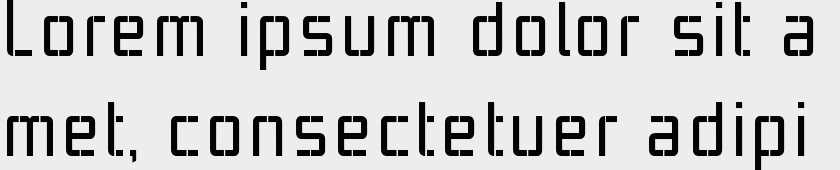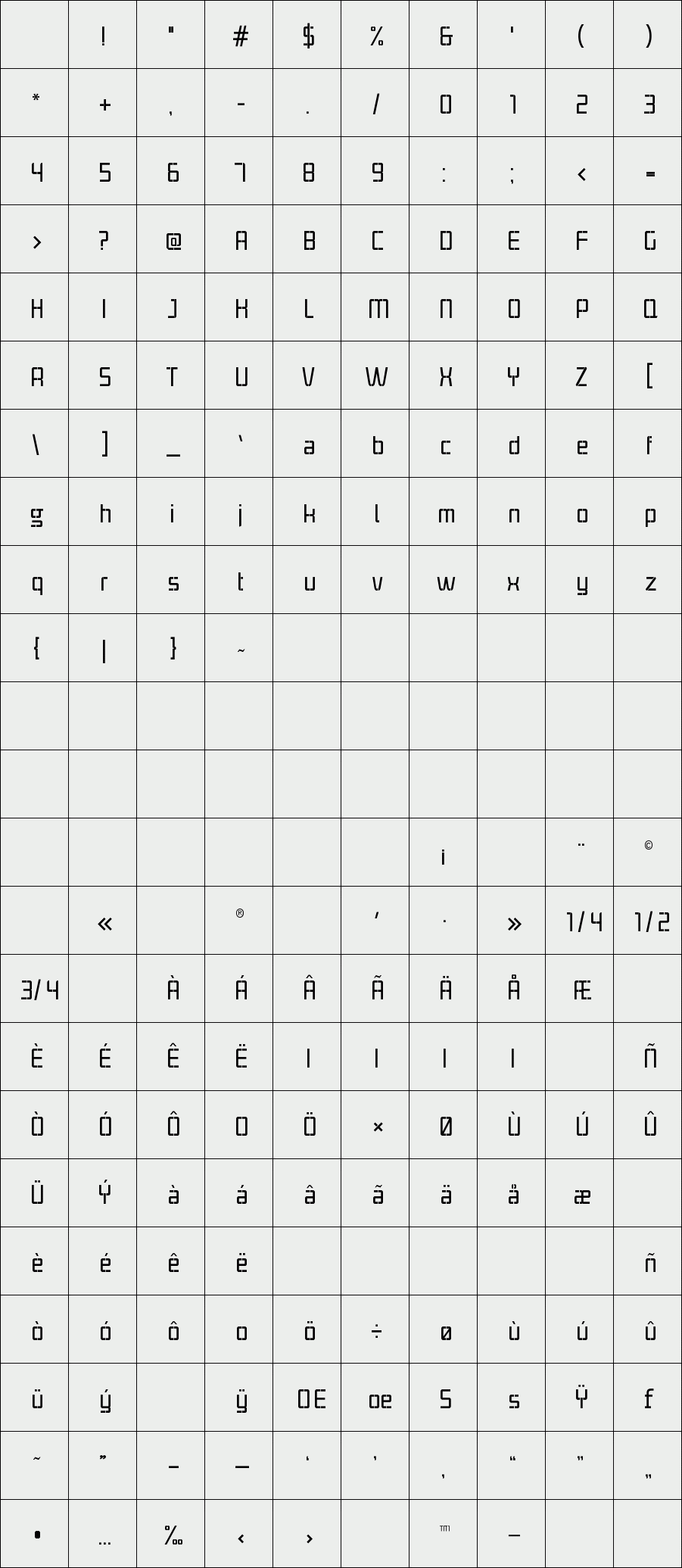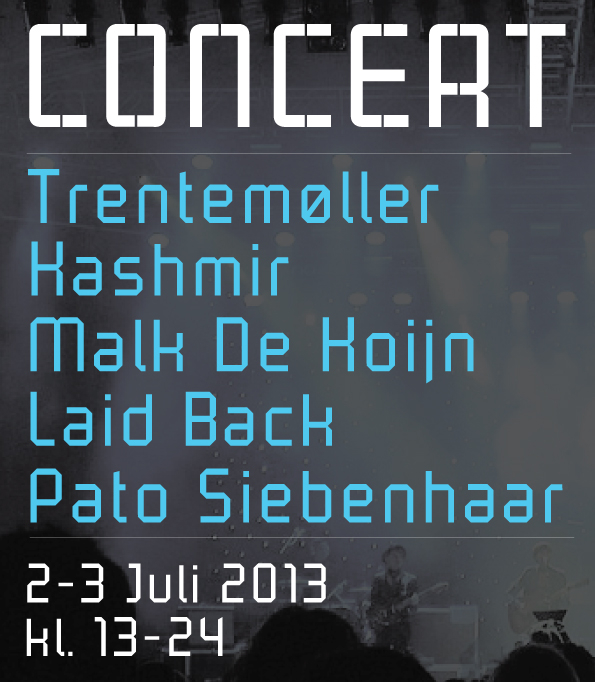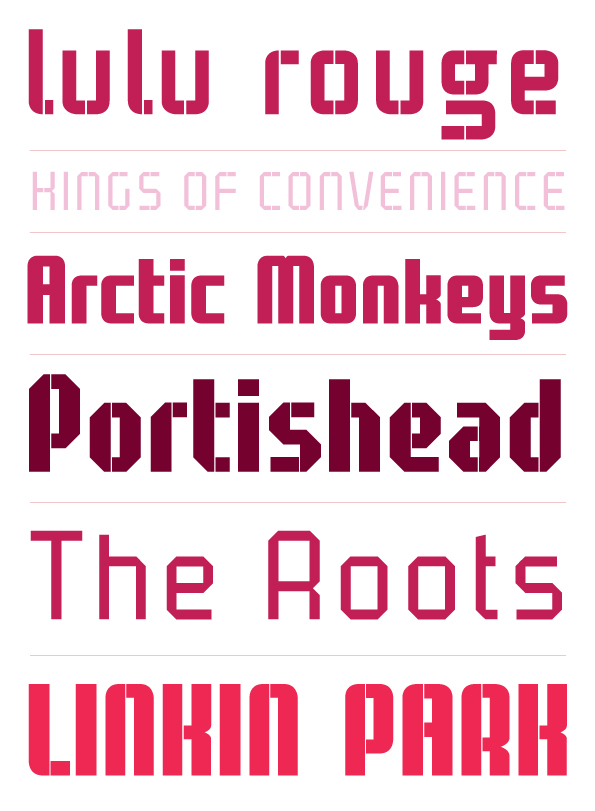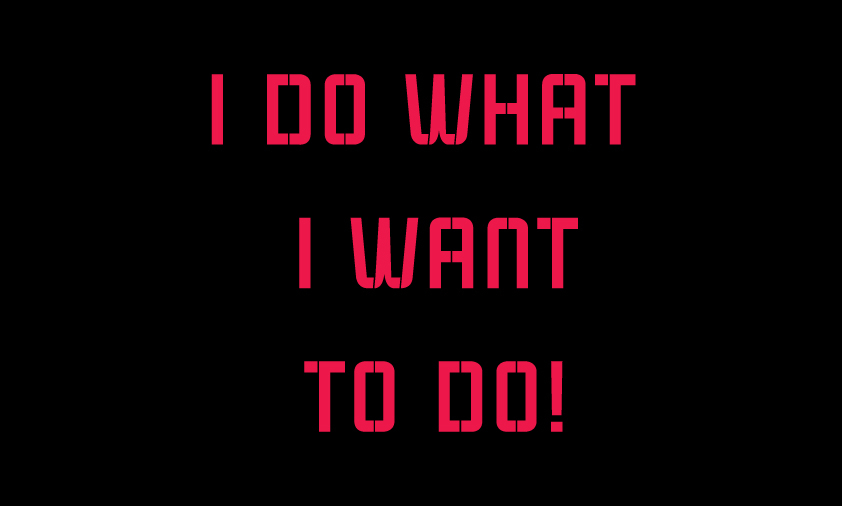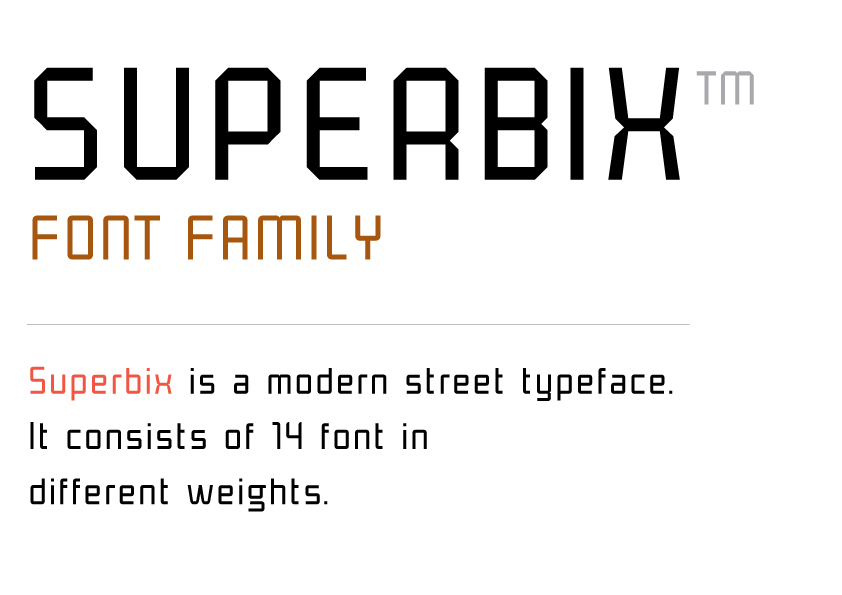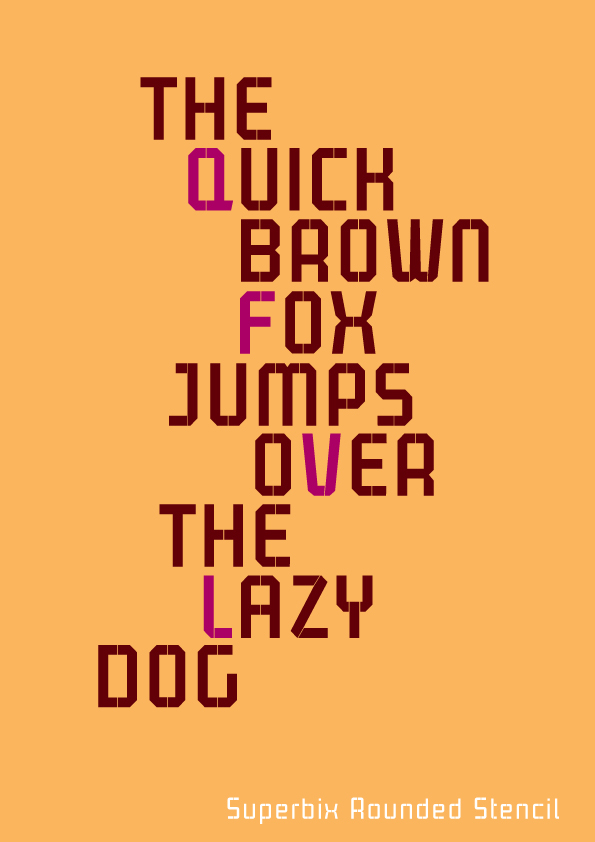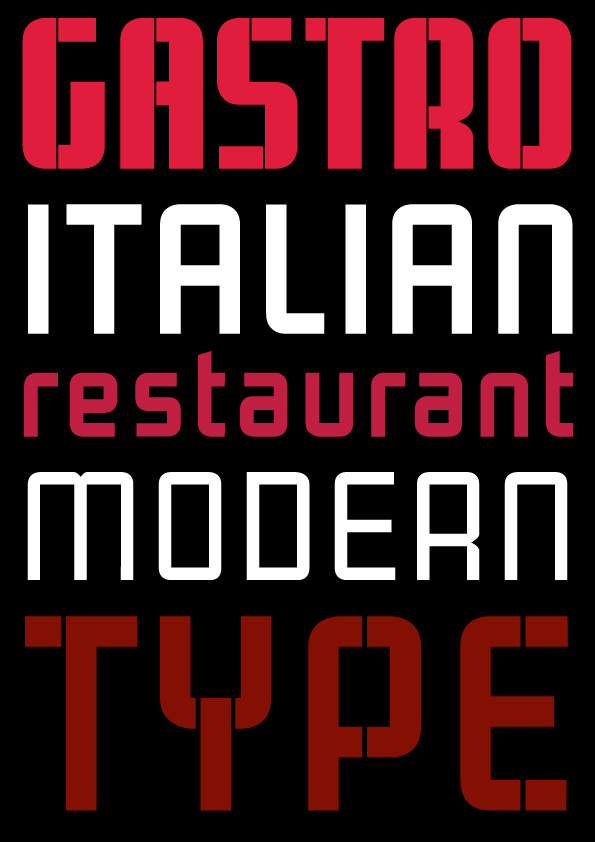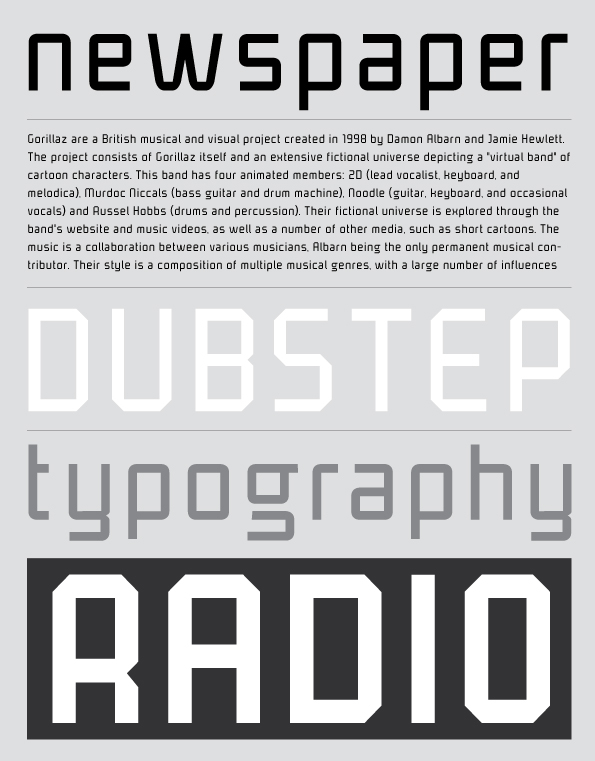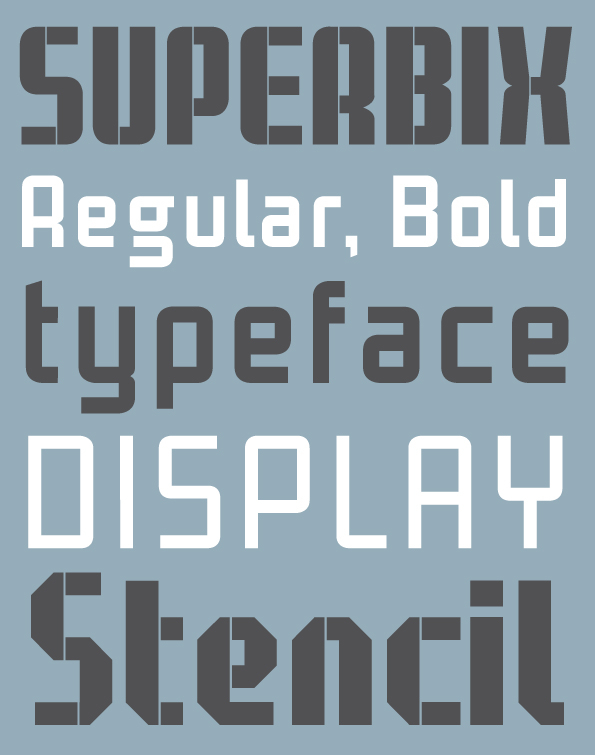
Superbix Rounded
Superbix Rounded Regular Stencil
superbix is a modern street typeface. It consists of 14 font in different weights.
Jan-Christian Bruun